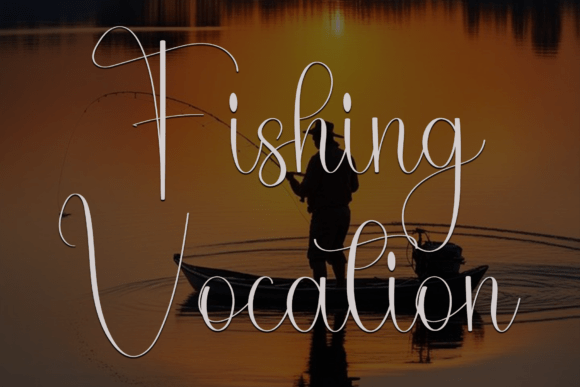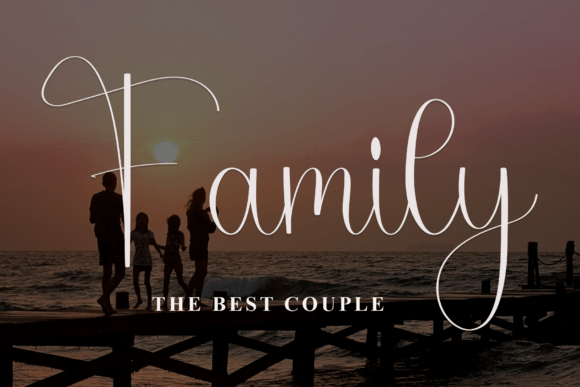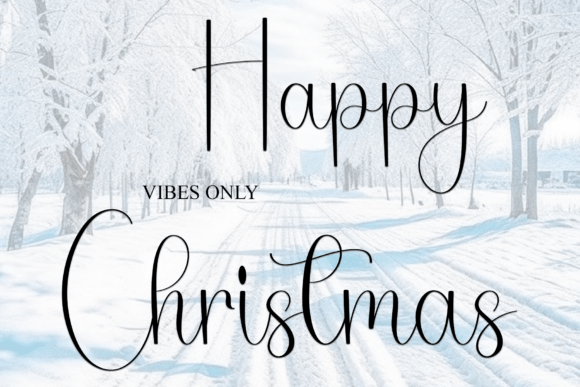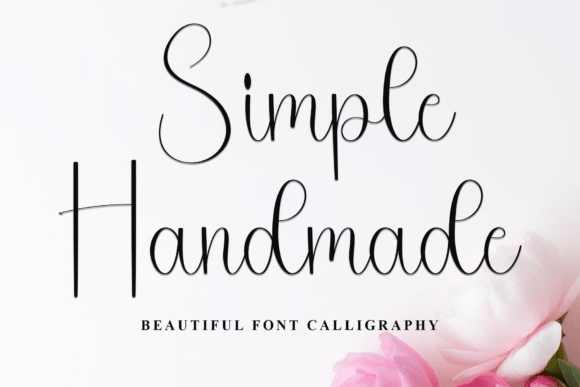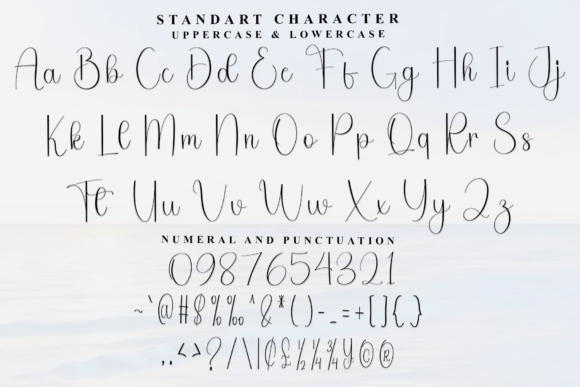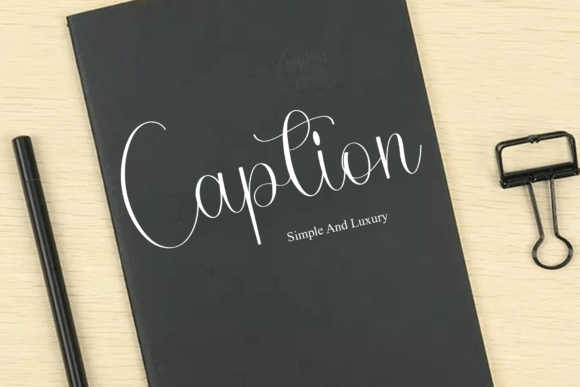
Introducing Bigday Christmas Font: Elevate Your Holiday Designs with Elegance and Charm
As the festive season approaches, designers and crafters are on the lookout for the perfect typography to bring their holiday projects to life. If you’re seeking a font that embodies the spirit of Christmas with elegance and charm, look no further than the Bigday Christmas Font. This beautiful, handwritten typeface is designed to add a touch of sophistication and warmth to your holiday designs, making it an ideal choice for a wide range of applications.
The Essence of Bigday Christmas Font
Bigday Christmas is a gracefully crafted handwritten font that exudes a sense of refinement and festivity. Its flowing, modern calligraphy style is characterized by tall, slim letters with smooth curves, creating a visually stunning effect that captures the essence of the holiday season. Whether you’re working on invitations, greeting cards, social media graphics, or seasonal branding, this font is sure to add a magical touch that feels both joyful and heartfelt.
Key Features of Bigday Christmas Font
- Flowing Modern Calligraphy Style: The font’s contemporary calligraphy style gives it a fresh and modern look, perfect for those who want to add a touch of sophistication to their holiday designs.
- Tall, Slim Letters: The elegant, elongated letters create a sense of grandeur and festivity, making the font ideal for headlines and decorative elements.
- Smooth Curves: The smooth, flowing curves of the letters add a sense of warmth and approachability, making the font perfect for creating a cozy and inviting atmosphere.
- Versatility: Bigday Christmas Font is designed to be versatile, working beautifully for both headlines and decorative elements, as well as for digital and print applications.
Perfect for a Variety of Holiday Projects
Bigday Christmas Font is an excellent choice for a wide range of holiday projects, including:
- Invitations: Add a touch of elegance to your holiday party invitations, Christmas card announcements, or New Year’s Eve celebrations.
- Greeting Cards: Create beautiful, heartfelt greeting cards that will make your loved ones feel special.
- Social Media Graphics: Elevate your holiday social media posts with stunning graphics that showcase the Bigday Christmas Font.
- Seasonal Branding: Use the font to create a cohesive and festive brand identity for your holiday promotions and products.
Why Choose Bigday Christmas Font?
With so many fonts available, why choose Bigday Christmas Font for your holiday projects? Here are just a few reasons:
- Unique and Eye-Catching: The font’s distinctive, elegant style sets it apart from more traditional holiday fonts, making your designs sure to stand out.
- Easy to Read: Despite its elegant, cursive style, Bigday Christmas Font remains highly legible, even at smaller sizes.
- Customizable: The font can be easily customized to fit your specific design needs, allowing you to adjust the size, color, and style to suit your project.
Tips for Using Bigday Christmas Font
To get the most out of Bigday Christmas Font, here are a few tips:
- Pair with Complementary Fonts: Combine Bigday Christmas Font with simpler, sans-serif fonts to create a striking contrast and add visual interest to your designs.
- Experiment with Colors: Try pairing the font with a range of festive colors, from traditional red and green to metallic gold and silver.
- Use for Headlines and Decorative Elements: Take advantage of the font’s elegant style by using it for headlines and decorative elements, such as borders and flourishes.
Bigday Christmas Font is a beautiful, elegant handwritten font that is sure to elevate your holiday designs with its flowing, modern calligraphy style. With its versatility, readability, and customizable nature, this font is perfect for a wide range of holiday projects, from invitations and greeting cards to social media graphics and seasonal branding. Whether you’re a designer or crafter, Bigday Christmas Font is an excellent choice for adding a touch of sophistication and festivity to your holiday creations.